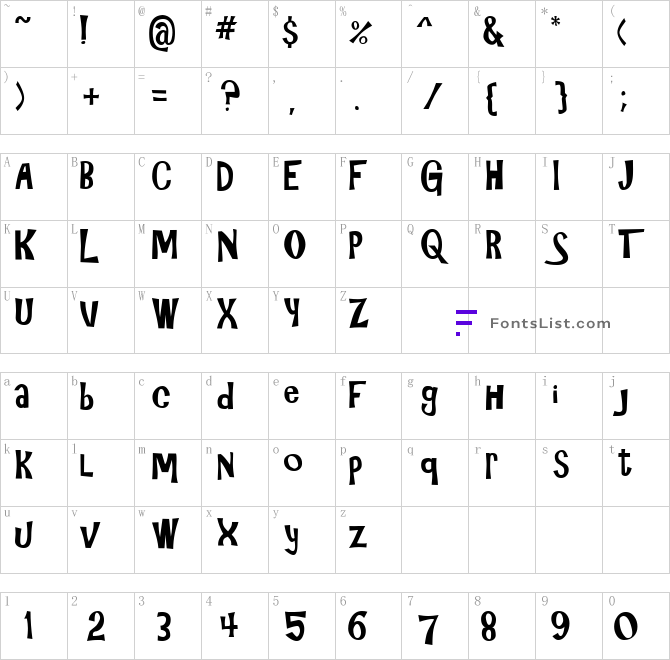
AR-CHRISTY.ttf is a very beautiful artistic font, AR-CHRISTY.ttf is widely used in the design and printing of various books and pictures,AR-CHRISTY.ttf has a strong visual impact,AR-CHRISTY.ttf is a commonly used font in newspapers, magazines and books, and is used in posters, e-commerce Poster design, store design, logo design, font design and other fields.AR-CHRISTY.